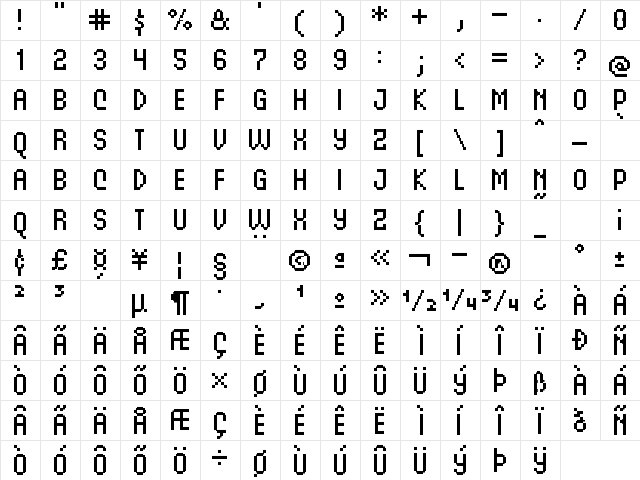
UF Android Menu Regular Font Preview
UF Android Menu Regular
UF Android Menu Regular Font Details
| Foundry | Ultrafonts |
| Designer | Miguel Hernதez |
Design Context for UF Android Menu Typeface
UF Android Menu offers clean, dependable letterforms without strong stylistic allegiance, making it a practical choice for designers who need flexibility.